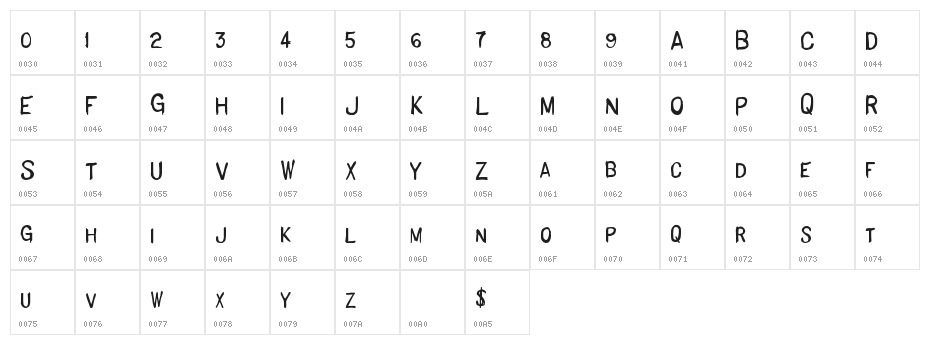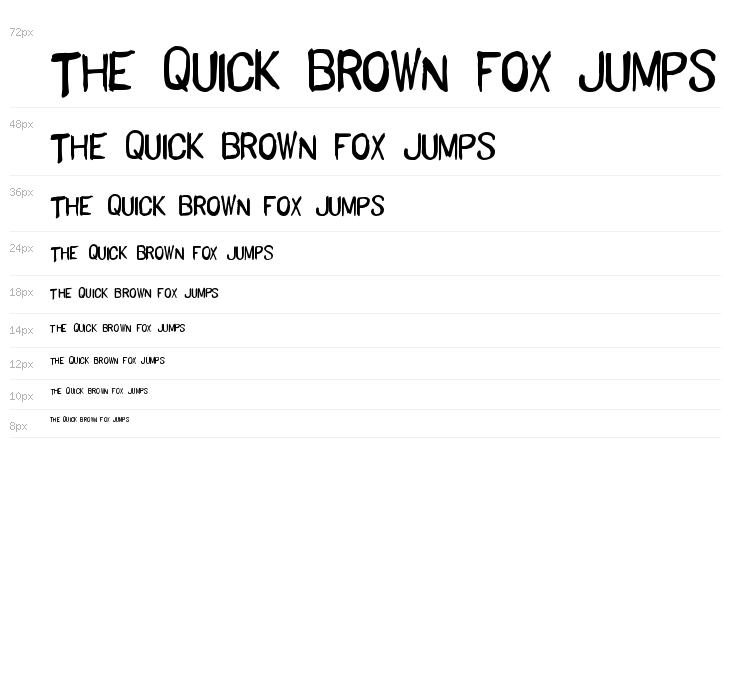
BasicHand Font
BasicHand Description
This font features a playful, handwritten style with a casual and informal appearance. The characters are slightly irregular, giving it a human touch that mimics natural handwriting. The strokes are bold and consistent, with a slight variation in thickness that adds to its charm. The letters are well-spaced, ensuring readability while maintaining a whimsical feel. This font is suitable for projects that require a personal or creative touch, such as greeting cards, invitations, or children's book covers. Its unique style makes it stand out, adding a friendly and approachable vibe to any design.
| Overall Style | Casual, Playful |
| Use Case | Headlines, Logos, Invitations |
| Proposed Projects | Greeting cards, invitations, children's book covers, personal branding. |